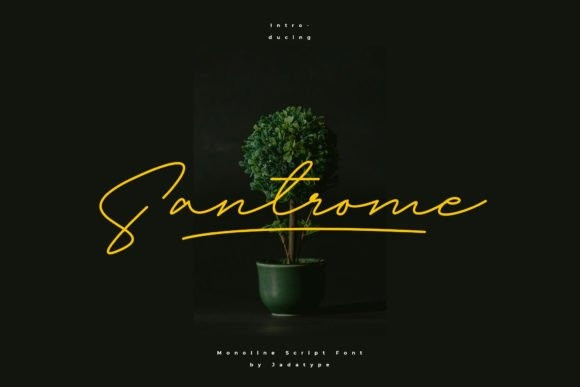
Santrome Handwritten Font
Santrome Handwritten Font is a beautiful and light handwritten script font with a unique feel and a stunning impact. It will add a luxury spark to any design project that you wish to create!